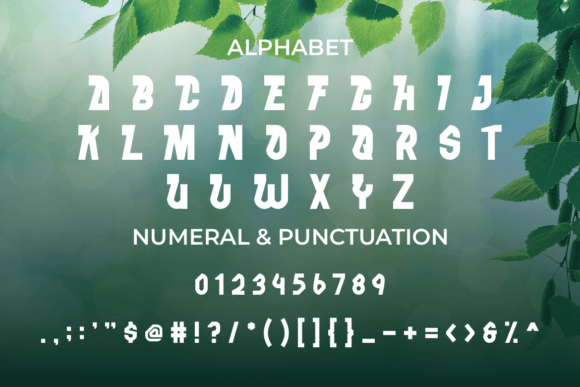
Introduction to Melelea Font
Melelea is a fun and bold display font.
Add it confidently to your projects and you will love the results .
Key Features of Melelea Font
Why Choose Melelea Font?
Melelea Font offers exceptional quality and versatility, making it a valuable addition to your design toolkit. Whether you’re creating for personal projects or commercial use, Melelea Font delivers professional results.